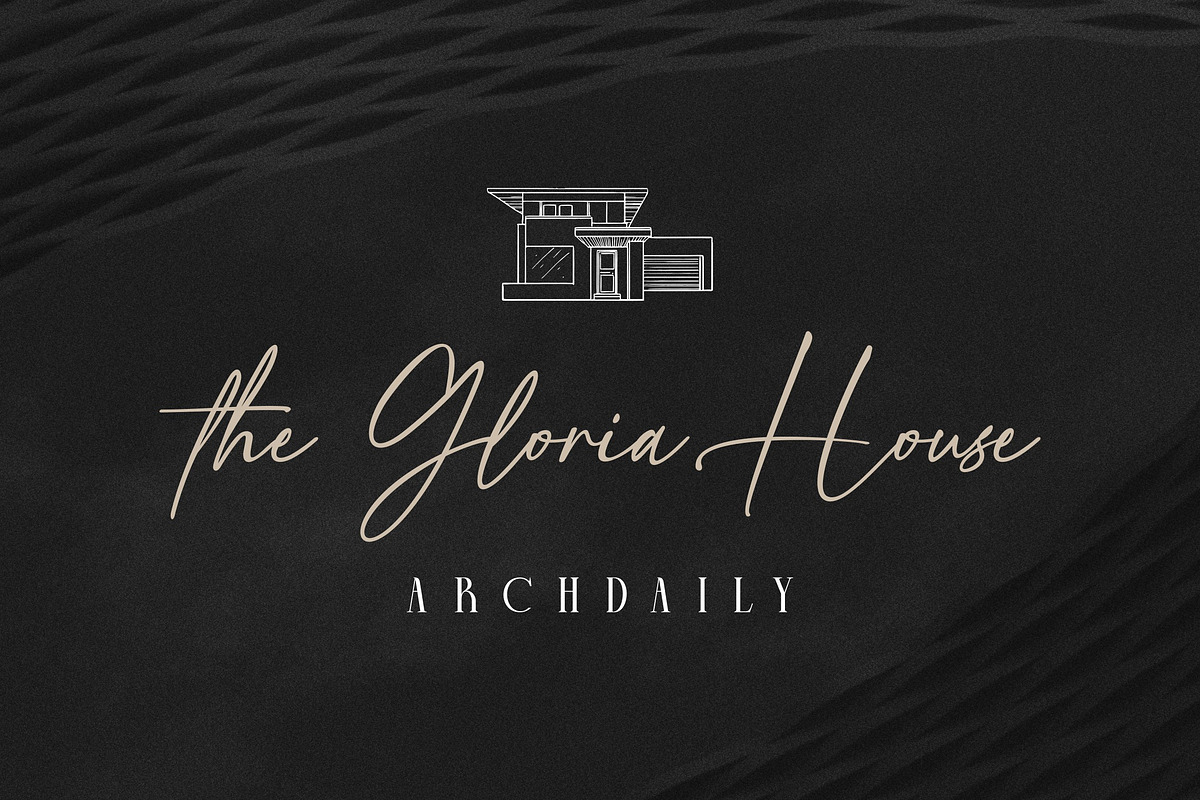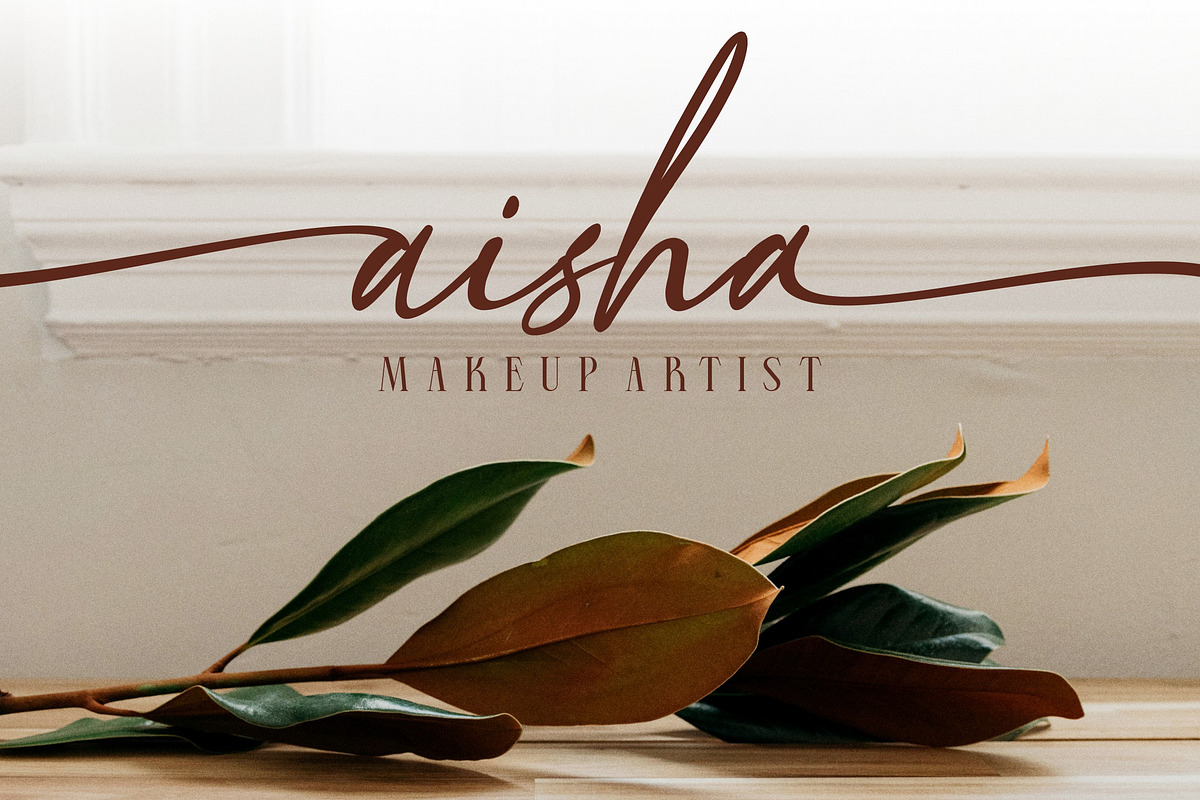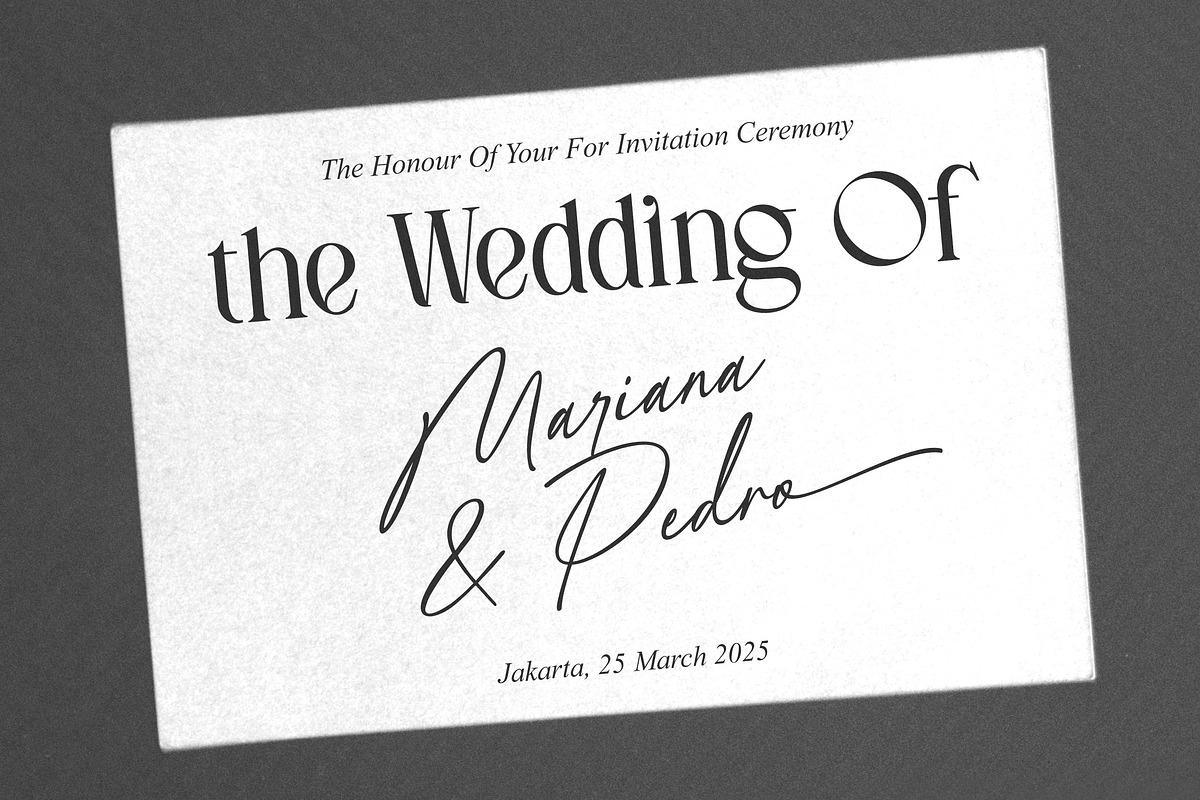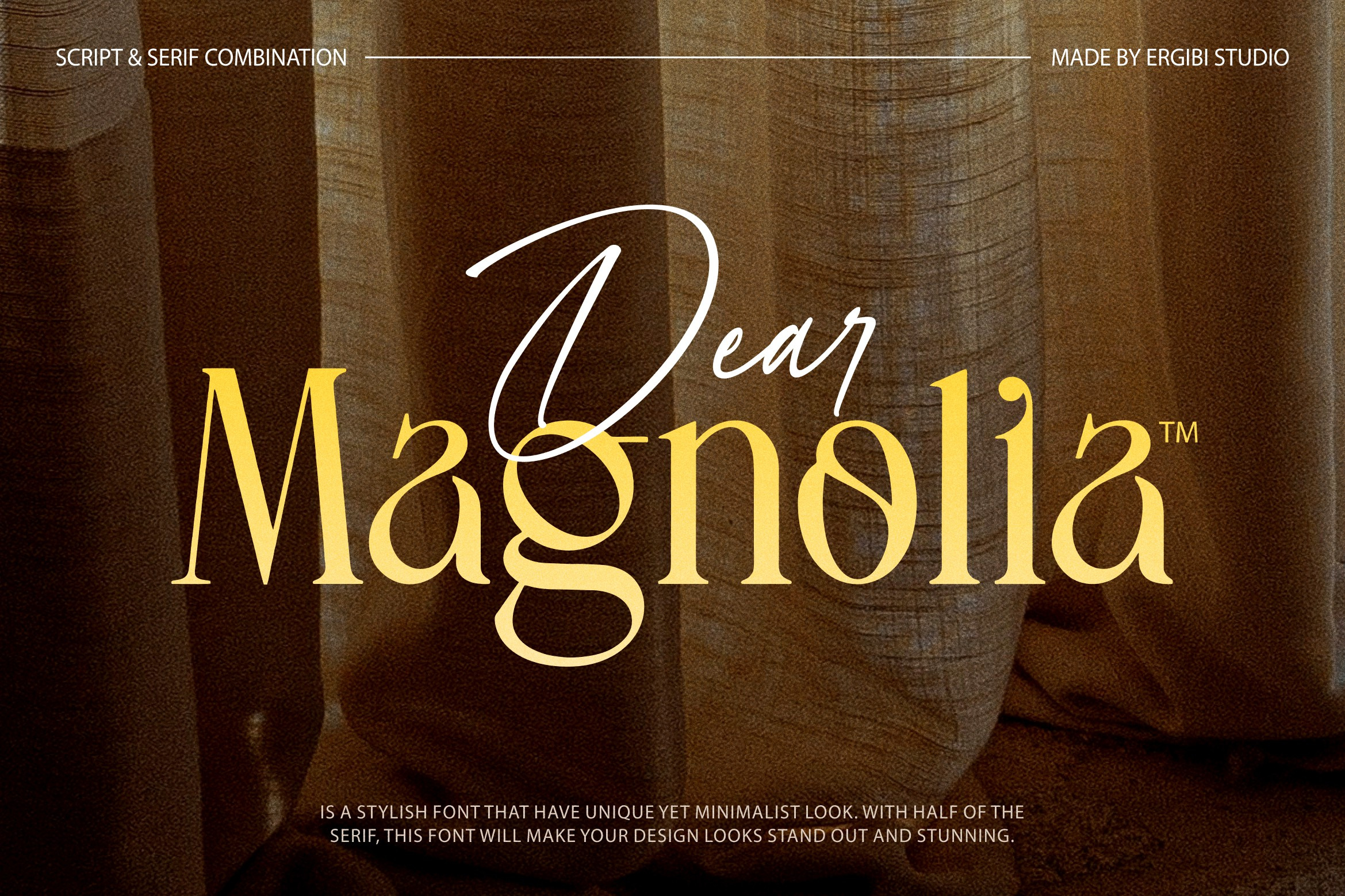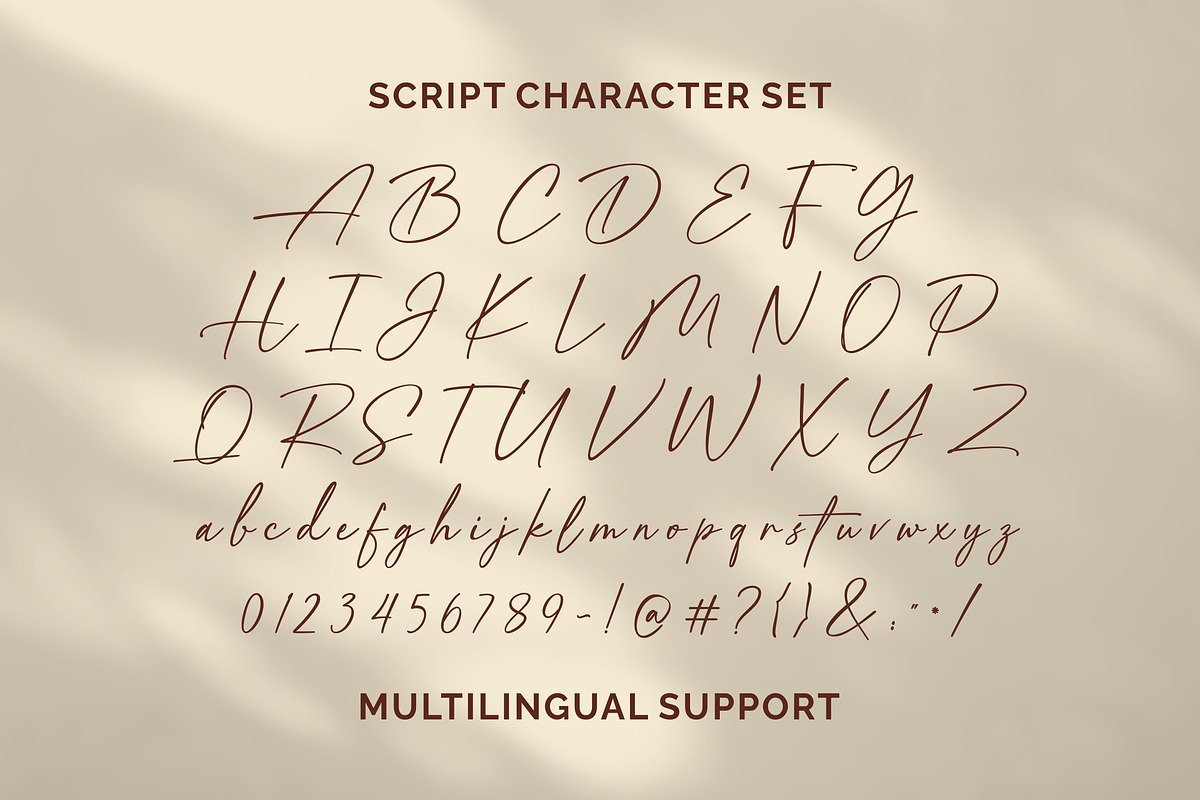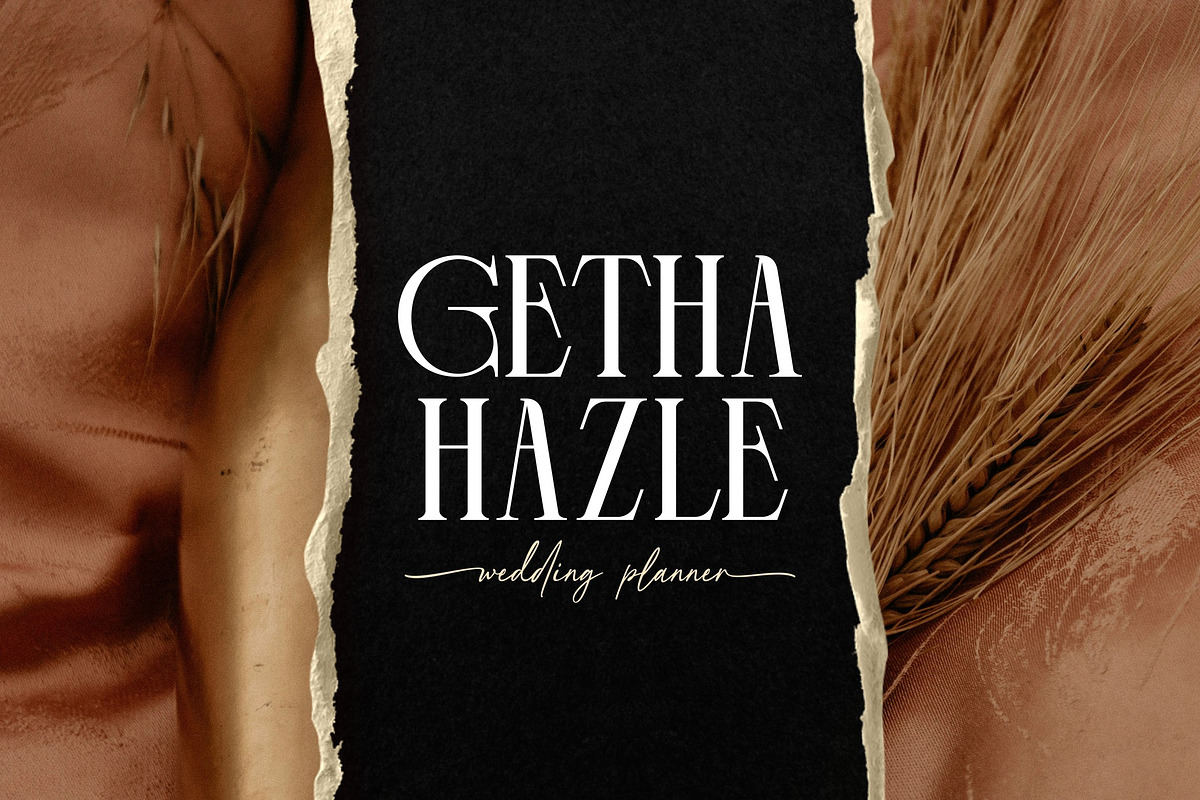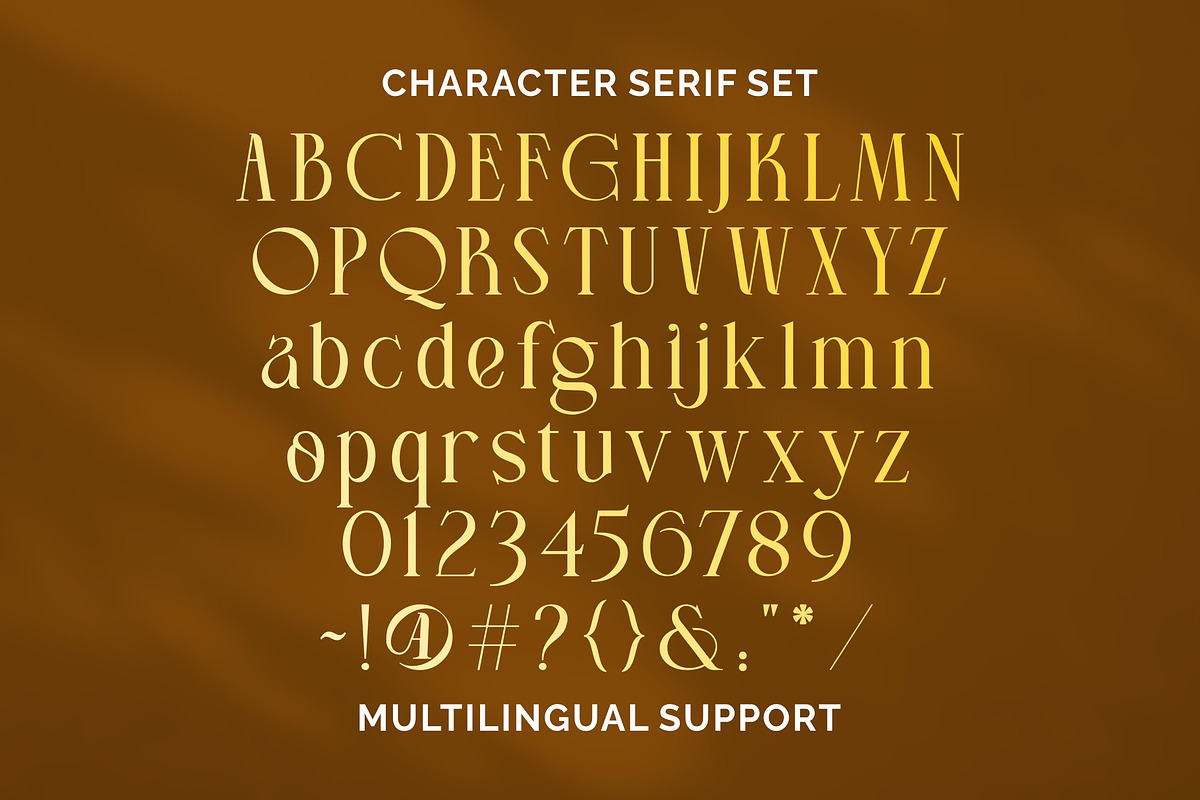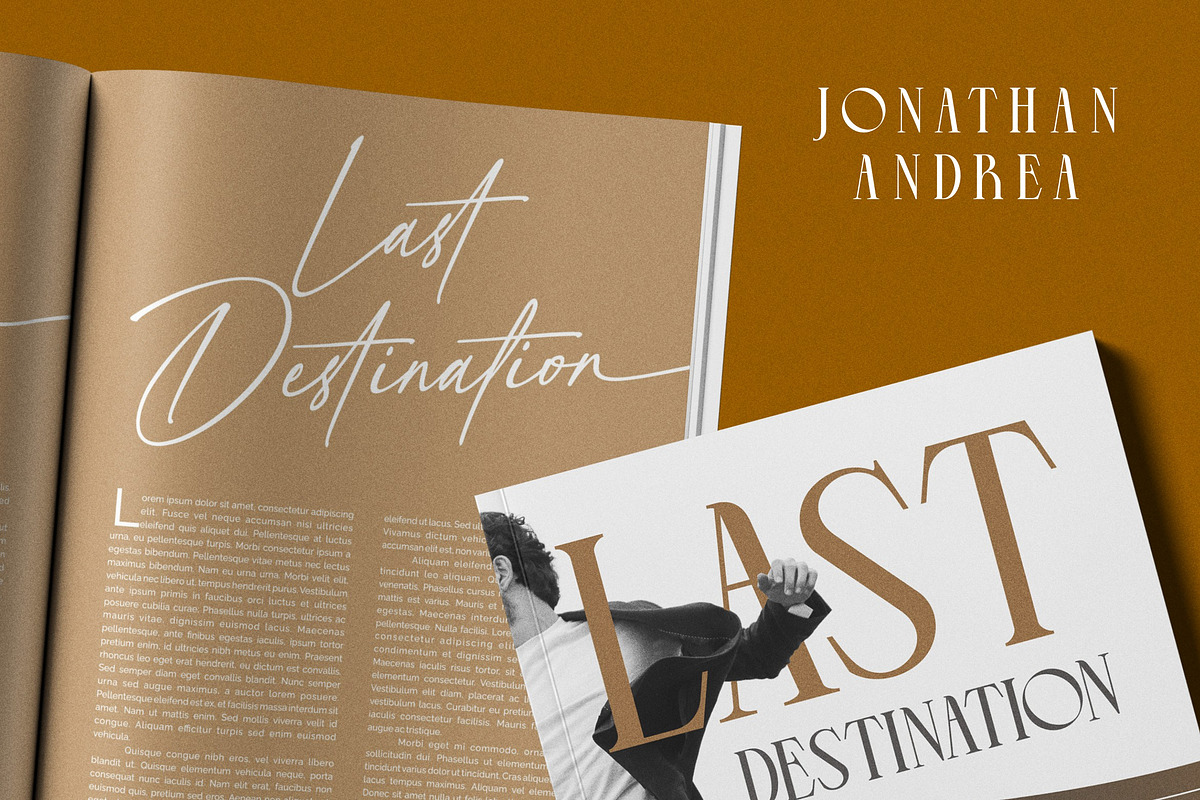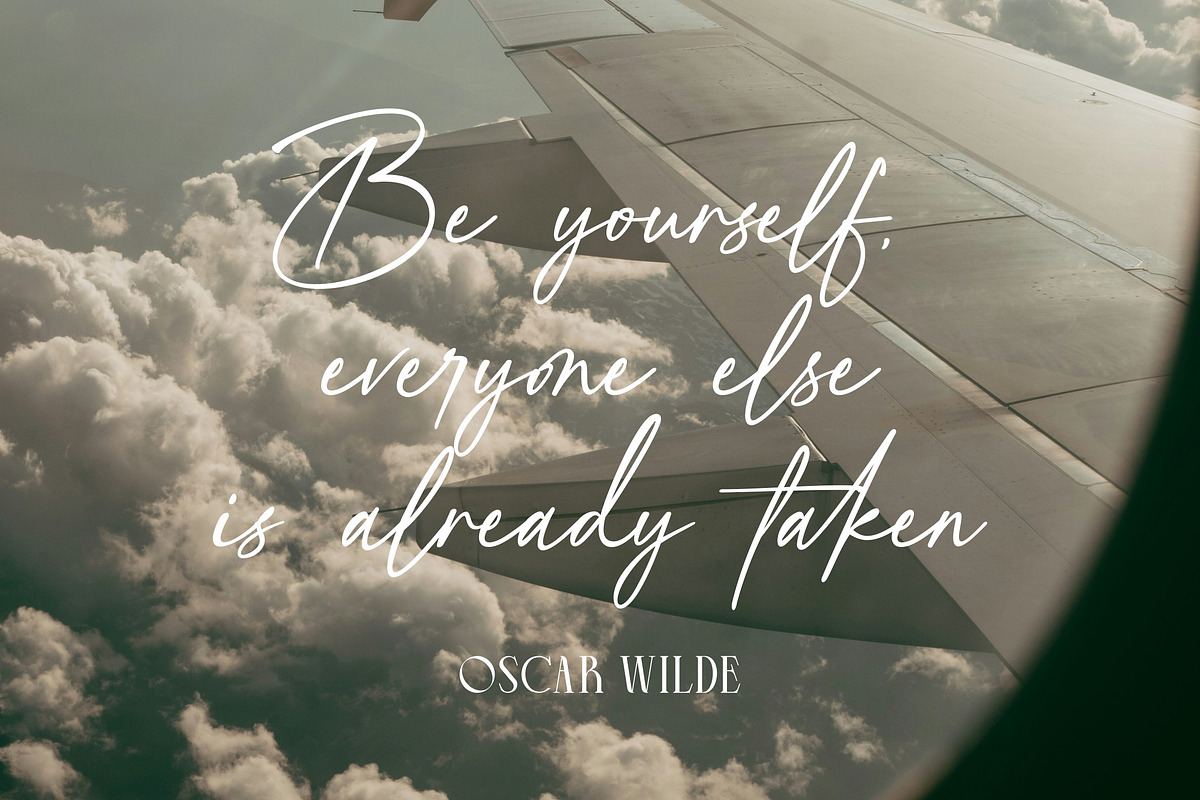
Dear Magnolia - Font Duo
Dear Magnolia is a stylish font that combines uniqueness with a minimalist look. Featuring half-serifs, this font adds a distinctive flair to your design, ensuring it stands out and looks stunning without being overly complex. Ideal for modern branding, editorial layouts, and sleek visual compositions, it strikes the perfect balance between elegance and simplicity. Whether used for headlines, logos, or packaging magazine’s headers, signs or gift/post cards,cafe’s and weddings or any type of advertising purpose.